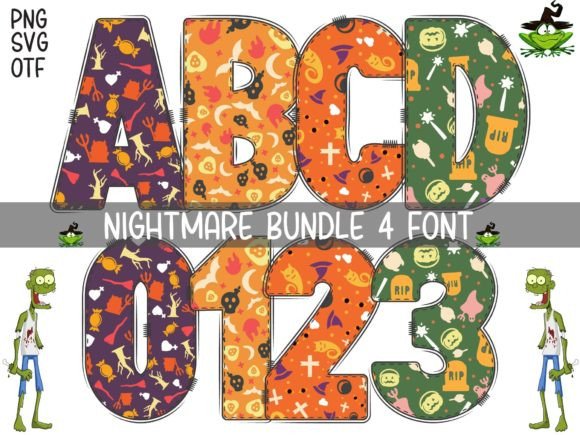
Journey into the realm of Nightmare Font, a captivating and playful creation from Font Design Market that will cast a spell on your designs. Step into the enchanting world of Halloween with this colorful font, meticulously crafted to add a touch of magic to your creative endeavors.
Unleash your imagination and let Nightmare Font weave its charm into your designs. Its intricate and detailed elements will make your words dance off the page, captivating your audience. Whether you're conjuring up Halloween-themed invitations, designing eye-catching posters, or crafting whimsical logos, Nightmare Font will be your trusty companion.
Transport yourself to a world of horror and delight as Nightmare Font takes you on a thrilling adventure. Its versatility knows no bounds, inviting you to explore the realm of cute and cuddly creations. It's the perfect font for adding a touch of whimsy to your projects, evoking a sense of wonder and enchantment.